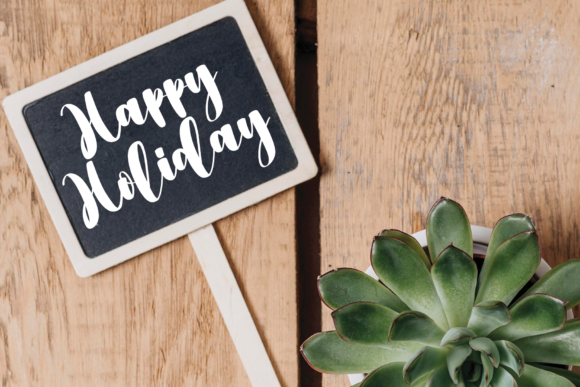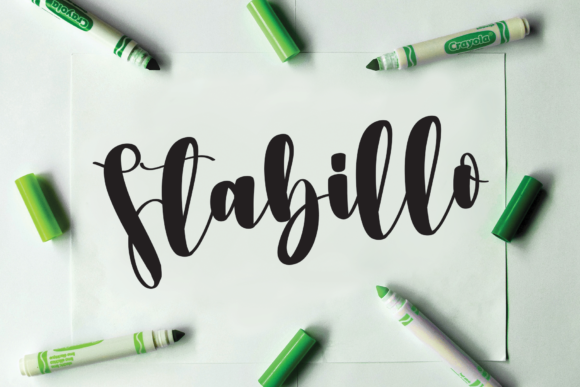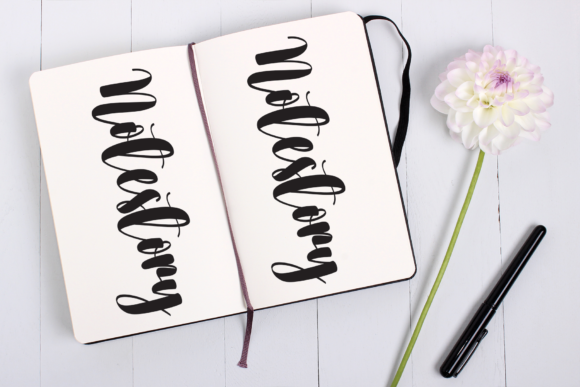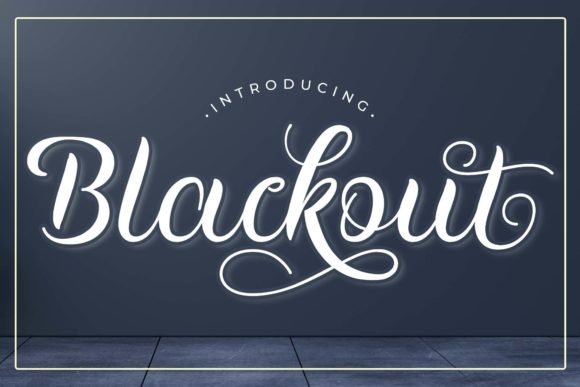
The Art of Elegant Typography: Unlocking the Power of Calligraphy Font
Have you ever sat down with a pen and paper, feeling the urge to create something beautiful and unique? Maybe it was a heartfelt letter to a loved one, a handmade card for a special occasion, or simply a doodle to express your mood. Whatever it is, that moment of creative freedom is what sparks our imagination and inspires us to push the boundaries of art and design.
Calligraphy Font is more than just a style of writing – it’s an art form that adds a touch of elegance and sophistication to any project. Whether you’re a designer, crafter, or simply someone who loves to create, this versatile font is the perfect tool to elevate your work and make it truly stand out. With its fluid lines and beautiful letterforms, Calligraphy Font is an invaluable asset for anyone looking to add a personal touch to their designs.
- Unique Characteristics: Calligraphy fonts are known for their elegant, cursive script style, often featuring connected letters and flourishes that add a touch of sophistication and creativity.
Calligraphy Font Review
As a designer, I’ve had the chance to work with the Calligraphy Font, and I must say it’s a mixed bag. On one hand, it’s great for creating elegant, high-end designs ✨. The intricate details and flourishes add a level of sophistication that’s hard to replicate with other fonts. It’s perfect for invitations, wedding designs, and other special occasions where you want to make a lasting impression.
However, there are some limitations to consider ⚠️. The font can be quite slow to load due to its complex design, which can be a problem if you’re working on a large project or need to make frequent changes. Additionally, the font’s limited character set can make it difficult to use in certain contexts, such as text-heavy designs or international projects.
Overall, I’d say the Calligraphy Font is a great choice for specific design projects, but it’s not a one-size-fits-all solution. With its unique strengths and weaknesses, it’s essential to weigh the pros and cons before deciding whether to use it in your next design.
- Elegant, high-end designs ✨
- Perfect for special occasions and invitations
- Slow to load due to complex design ⚠️
- Limited character set
- Difficult to use in text-heavy designs or international projects
Calligraphy fonts are commonly used for wedding invitations, birthday cards, and other special occasion stationery. They can also be used for branding and marketing materials, such as logos and business cards. Additionally, calligraphy fonts can be used for decorative elements, such as borders and headings, in presentations and reports.